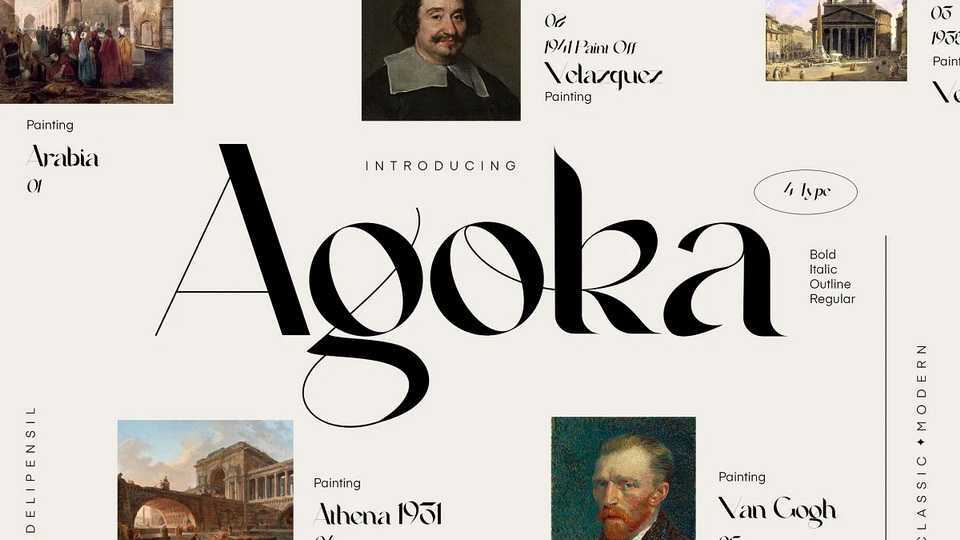
Download Agoka font, a beautiful and elegant modern display typeface, clean and mindful. Use Agoka for any project, logo, headline, cover book, magazine, website and editorial projects.
Designer: Delip Nugraha